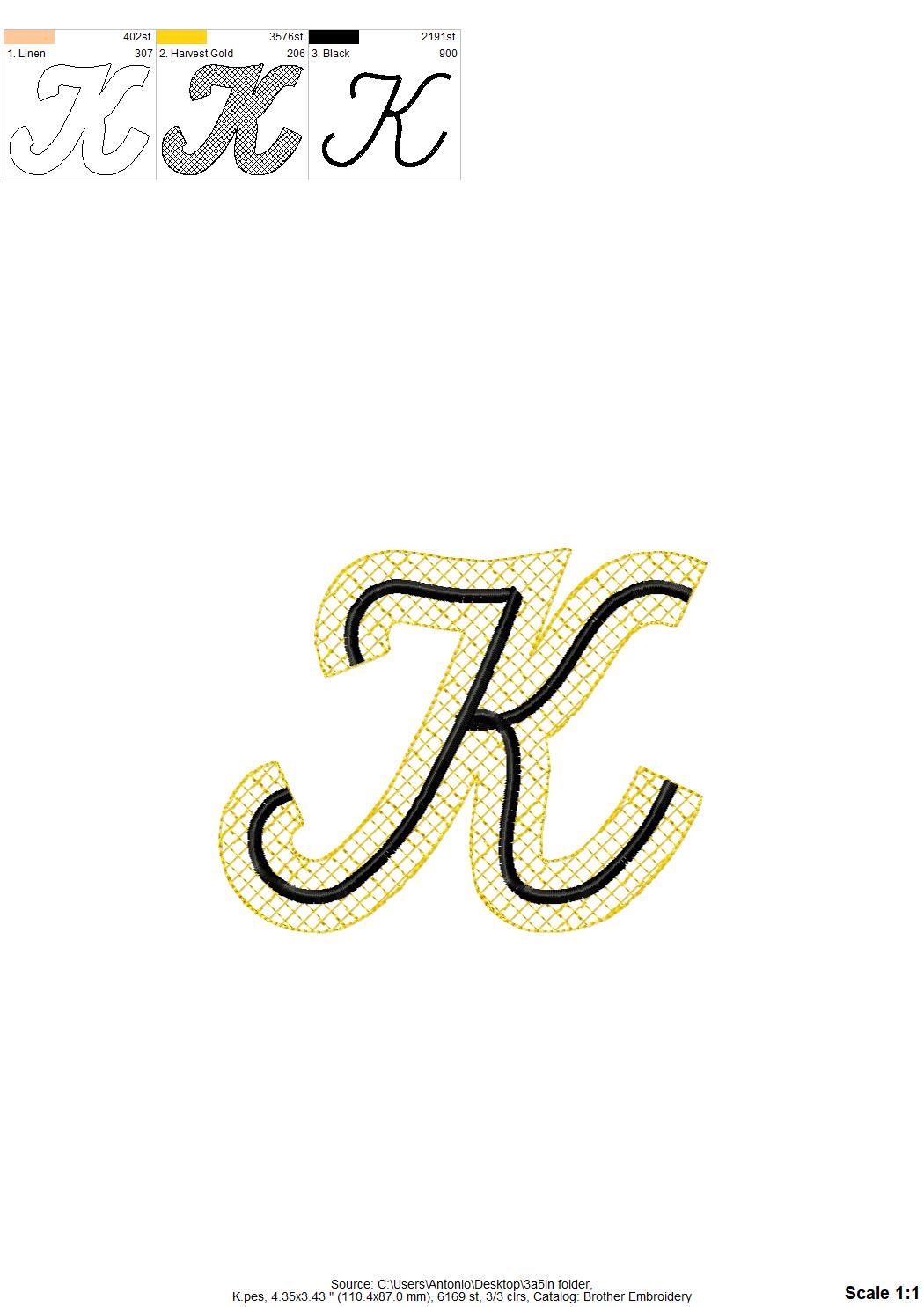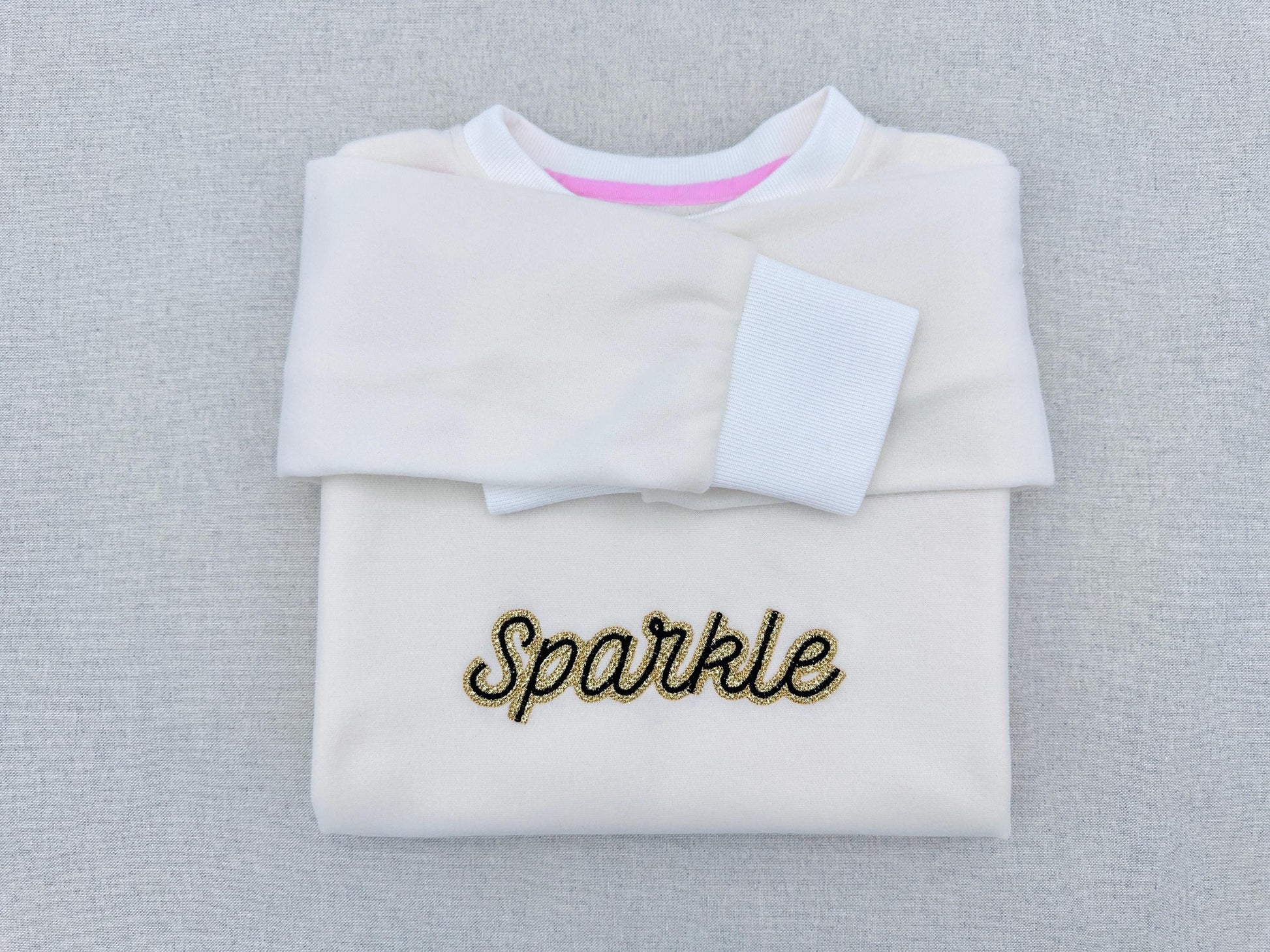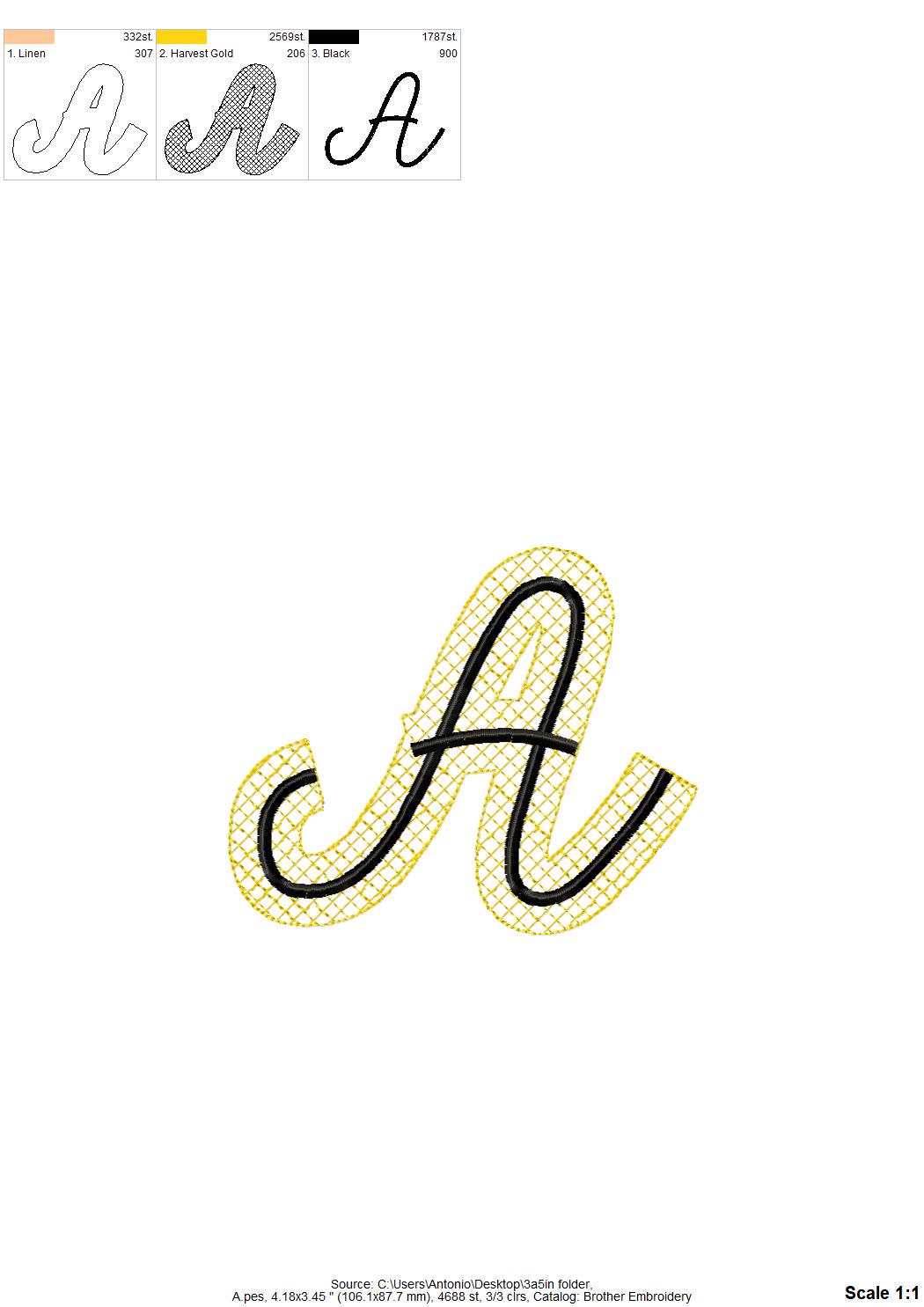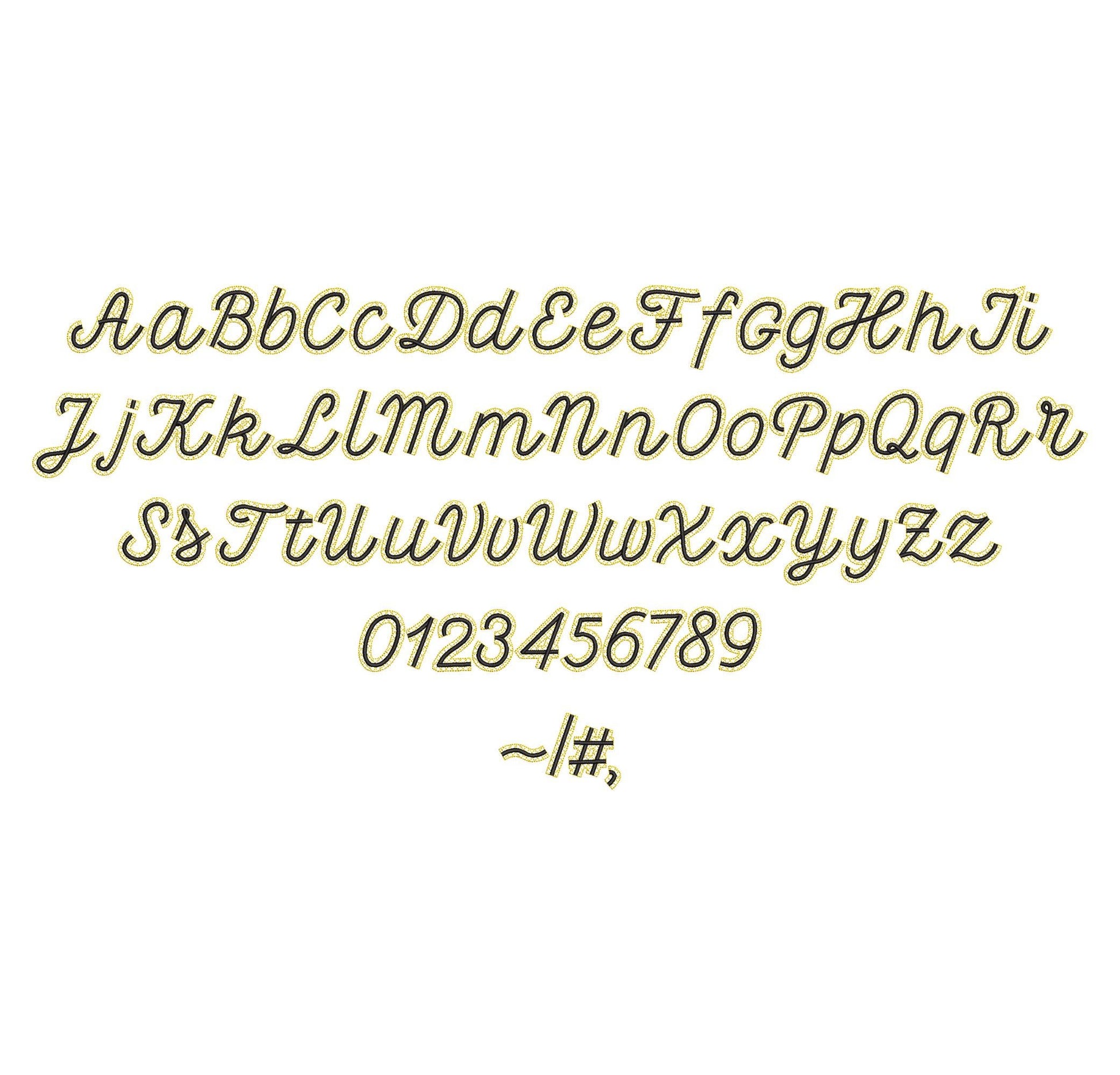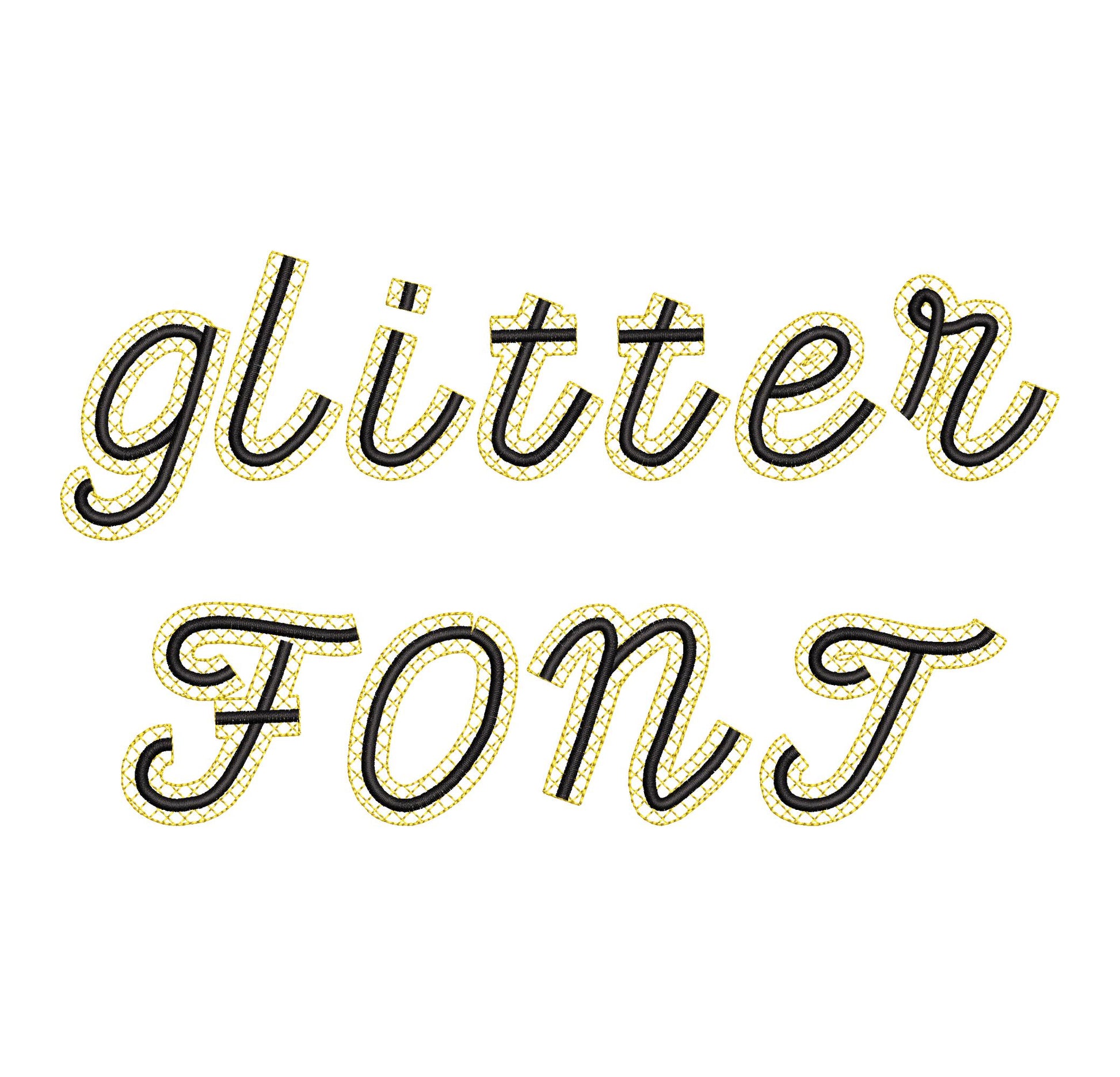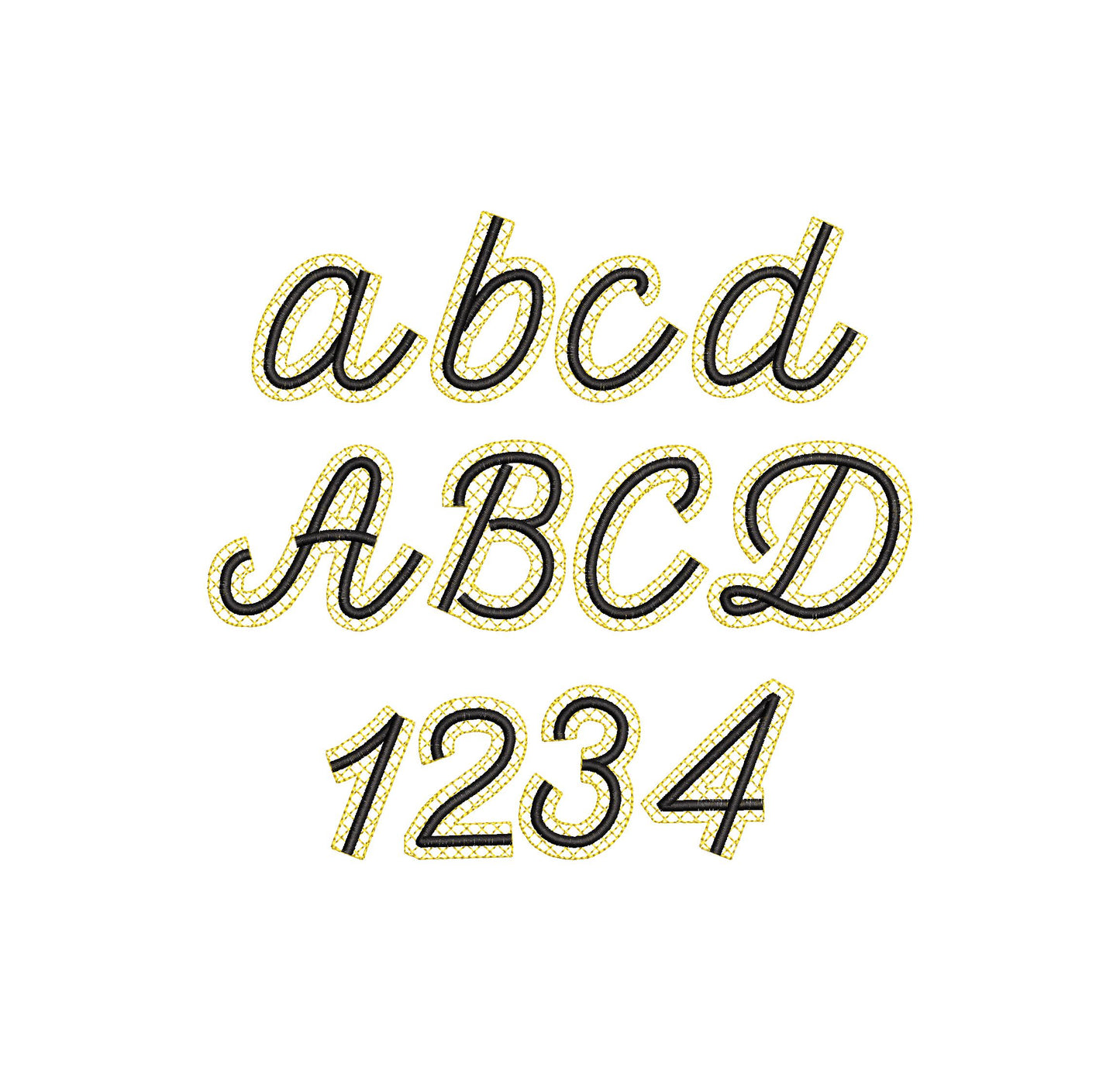
Or click to open the linkA script font with a glitter heat transfer vinyl layer and a satin stitch edge. Sparkly names and monograms on shirts, bags and party outfits.
The letters come in six sizes: 1.6, 2, 2.4, 2.9, 3.5 and 4.1 inches. Glitter vinyl is stitched down like applique and finished with a satin stitch edge. Includes uppercase and lowercase letters, numbers 0 to 9 and punctuation.